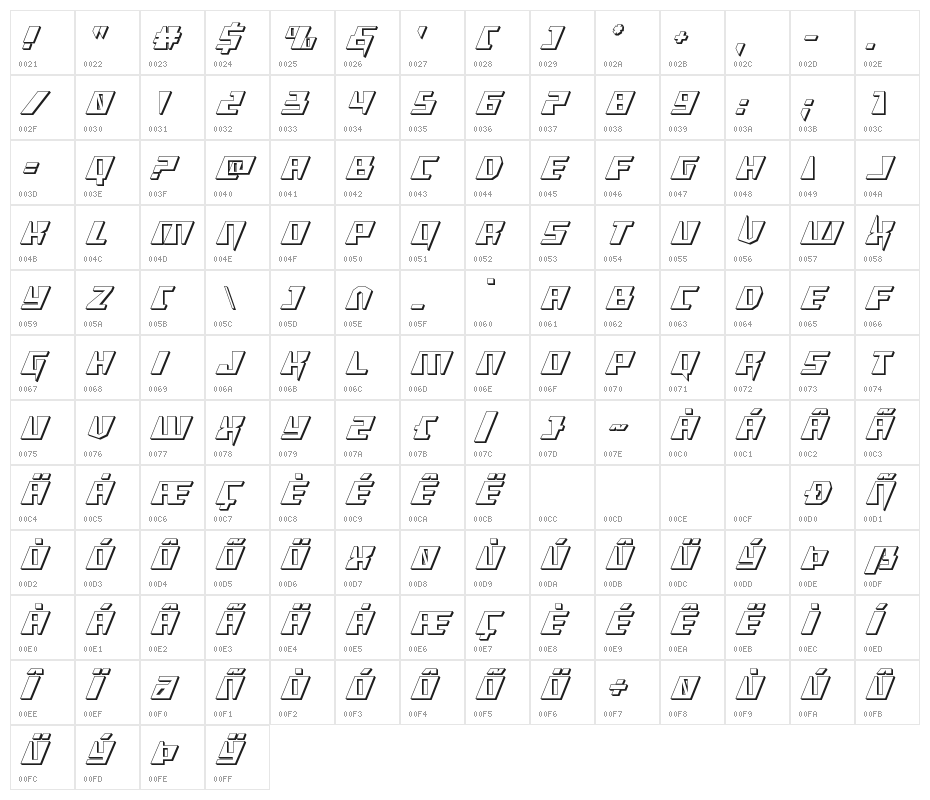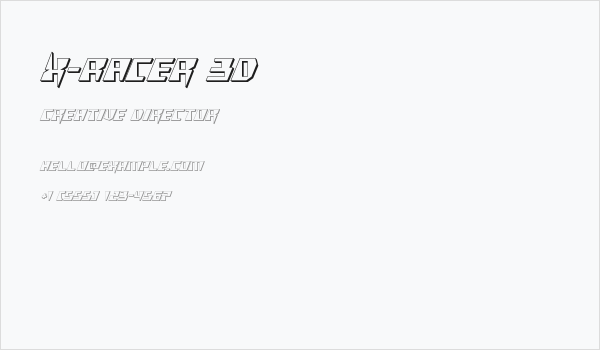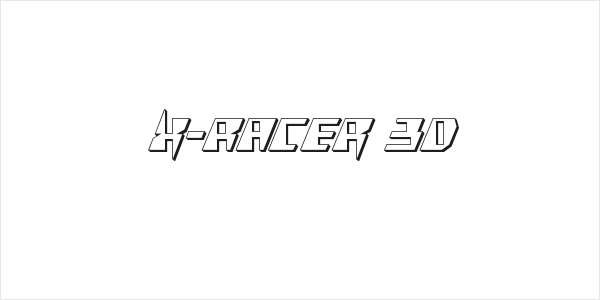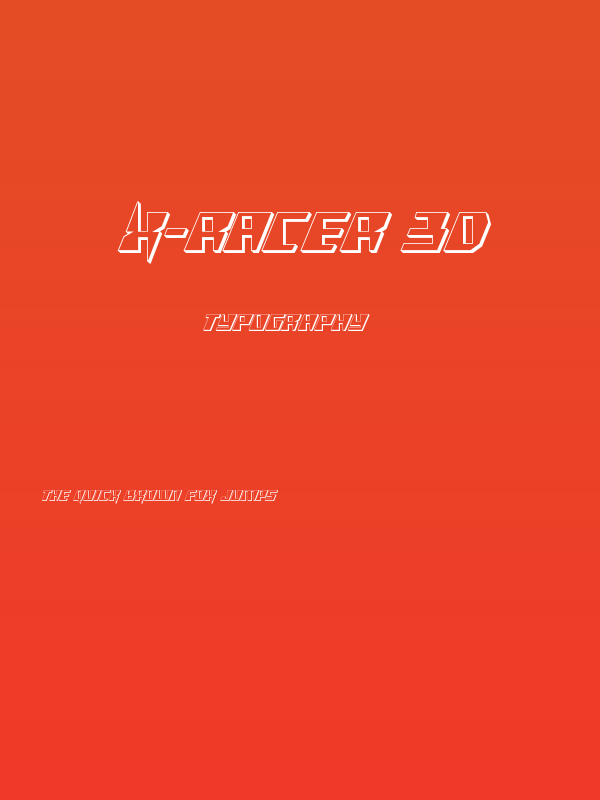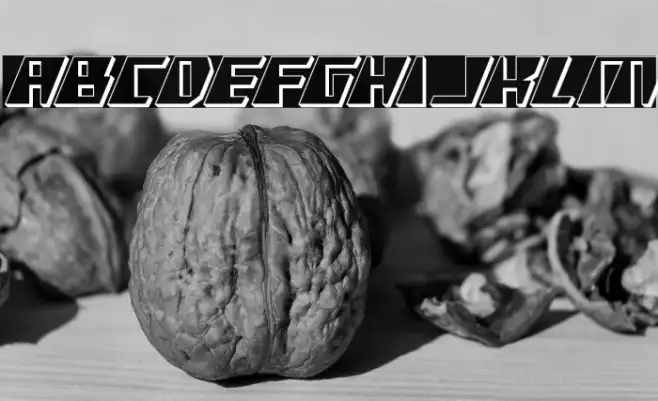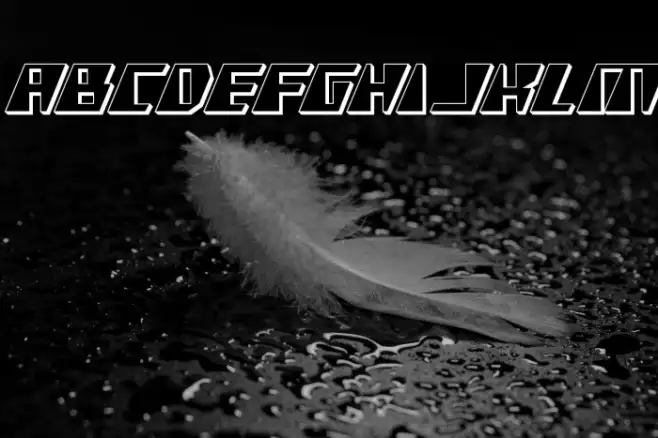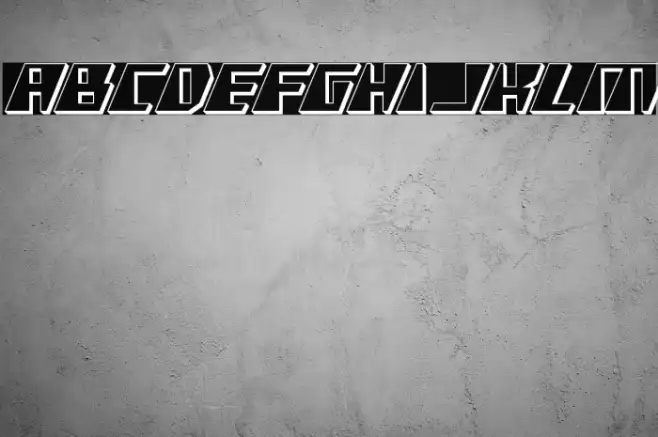
X-Racer 3D Font
X-Racer 3D Description
This font features a bold, angular design with a futuristic and dynamic appearance. The characters are outlined with a thick border, giving them a three-dimensional effect. The geometric shapes and sharp edges create a sense of speed and movement, making it ideal for projects that require a modern and edgy look. The uppercase and lowercase letters maintain a consistent style, while the numbers and special characters complement the overall aesthetic. This font is perfect for creating eye-catching headlines, logos, and branding materials that need to stand out.
| Proposed Projects | Ideal for futuristic branding, racing-themed designs, video game titles, and dynamic posters. |